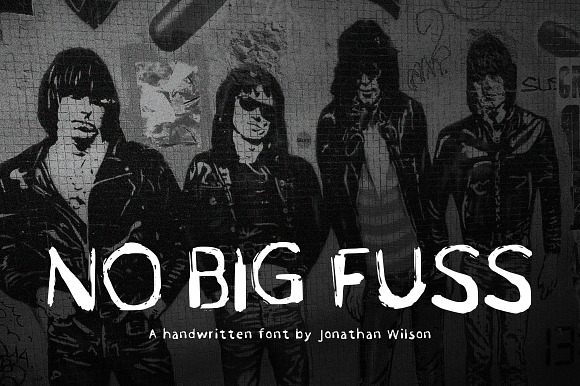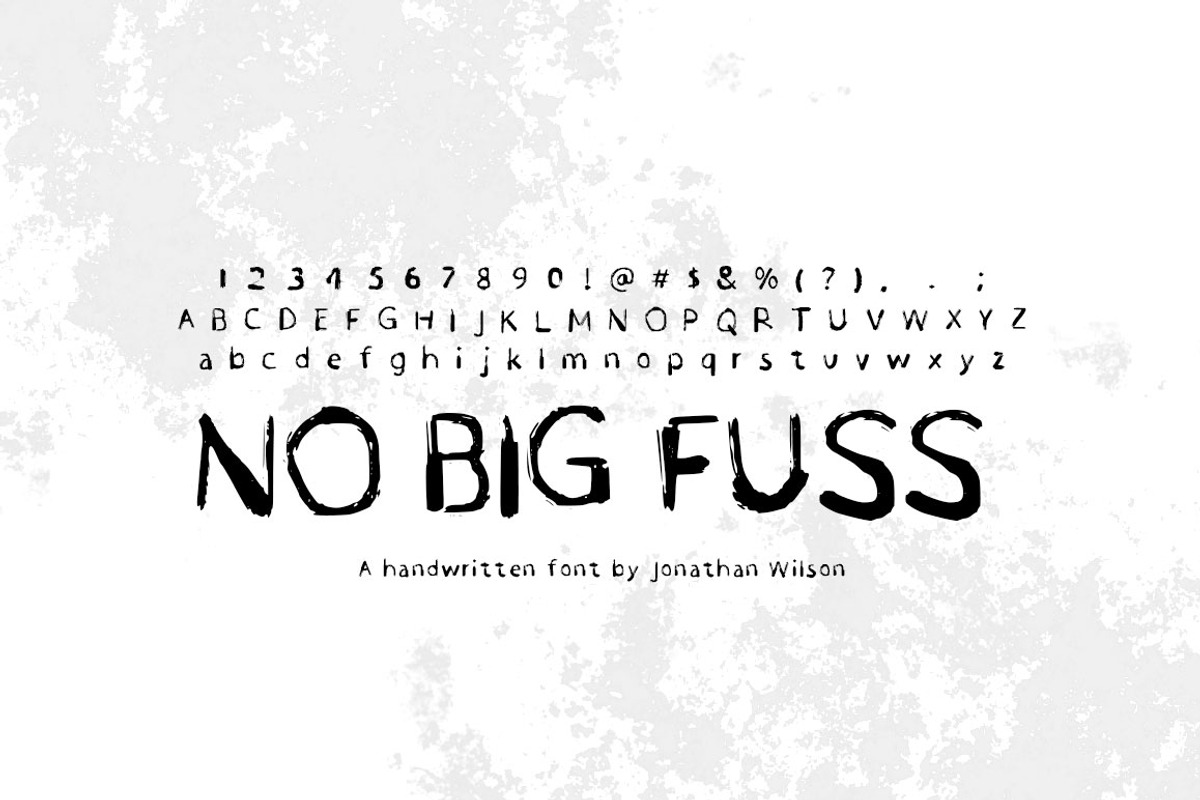
No Big Fuss Hand Lettered Font
My first ever font offering. Designed by hand, what fun! Kinda excited about this but like the name says, no big fuss. What you get are the font in TTF, OTF and Web font formats. Enjoy!
No Big Fuss Hand Lettered Font by Digital Art Downloads fits naturally into Branding, posters, packaging, typography.